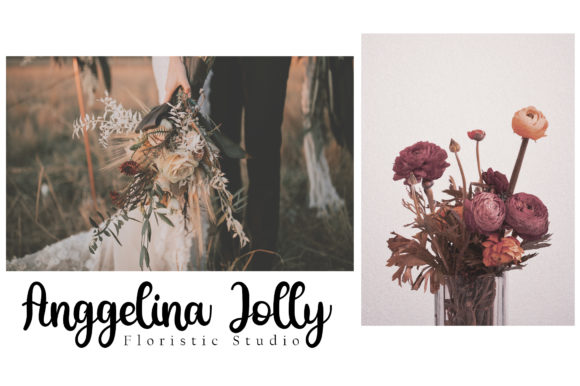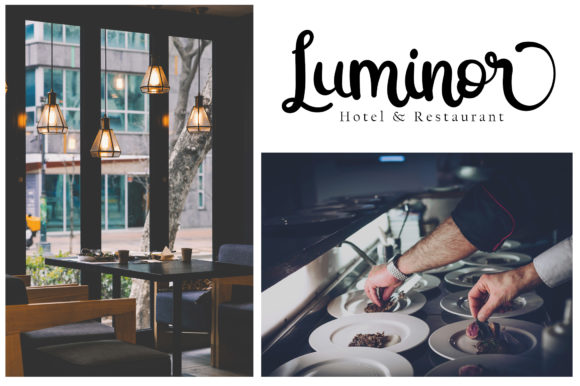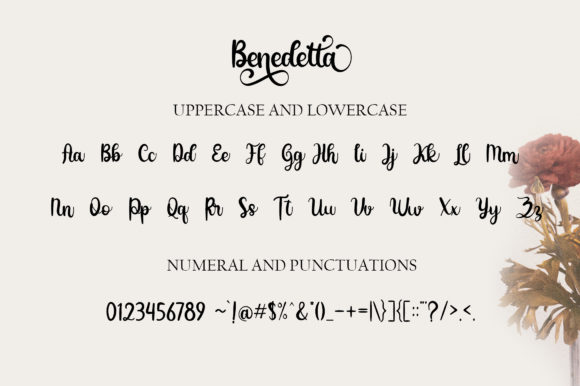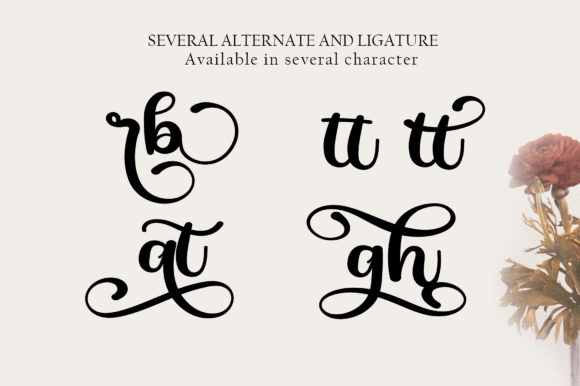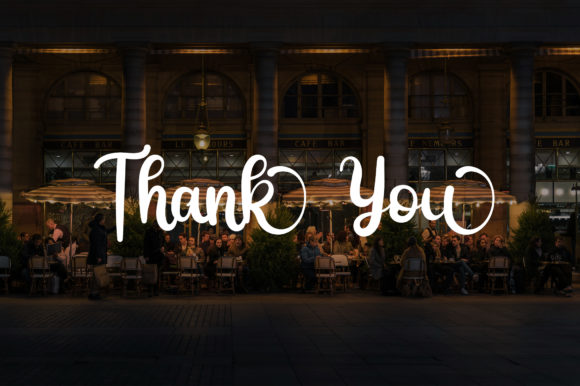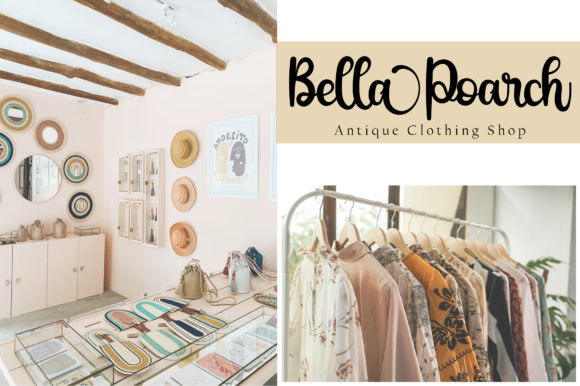
Benedetta Font: Elevate Your Designs with Elegance and Versatility
In the world of typography, few fonts manage to capture the essence of elegance and versatility as beautifully as Benedetta. This delicate and elegant handwritten font has been making waves among designers and crafters alike, and for good reason. With its distinct and well-balanced letters, Benedetta is a masterpiece waiting to be explored. In this article, we’ll dive into the features that make Benedetta a standout choice for your design projects and how it can help you create spectacular designs.
The Beauty of Benedetta
Benedetta’s charm lies in its delicate and elegant appearance. Each letter is carefully crafted to exude a sense of refinement and sophistication, making it perfect for projects that demand a touch of class. Whether you’re working on wedding invitations, branding materials, or digital content, Benedetta’s timeless beauty shines through, adding a level of professionalism and allure to your designs.
Distinct and Well-Balanced Letters
One of the defining features of Benedetta is its distinct and well-balanced letters. The font’s design ensures that each character is unique yet harmonious with the others, creating a cohesive and visually appealing text flow. This balance is crucial for readability and aesthetics, making Benedetta not only beautiful but also highly functional across various design applications.
Incredibly Versatile Style
Versatility is key in design, and Benedetta delivers in spades. Its elegant style can adapt to a wide range of projects, from feminine and whimsical to more formal and corporate. Whether you’re designing for print or digital platforms, Benedetta’s flexibility allows you to experiment with different styles and tones, ensuring your design always hits the mark.
Benedetta is PUA (Private Use Area) encoded, which means accessing its amazing glyphs and ligatures is incredibly easy. PUA encoding allows designers to use the font’s extended features without needing specialized software, making it straightforward to incorporate the font’s full range of creative possibilities into your designs. This feature is especially beneficial for those who want to add a personal touch to their work without getting bogged down in technical complexities.
Applications of Benedetta
The applications of Benedetta are as varied as they are exciting. Here are a few ideas to get you started:
• Wedding and Event Stationery: Create stunning wedding invitations, save-the-date cards, and event posters that set the tone for a memorable occasion.
• Branding and Packaging: Elevate your brand with elegant logos, product labels, and packaging designs that convey sophistication and quality.
• Digital Content: Enhance your website, blog, or social media graphics with Benedetta’s refined touch, making your content stand out in a crowded digital landscape.
• DIY Projects: Crafters will love using Benedetta for handmade cards, journaling, and other paper crafts, adding a personal and elegant touch to their creations.
Benedetta is more than just a font; it’s a design companion that can elevate your projects to new heights of elegance and sophistication. Its delicate and elegant appearance, combined with its versatility and ease of use, makes it an invaluable asset for designers and crafters. Whether you’re looking to create breathtaking wedding stationery, compelling brand identities, or simply add a touch of elegance to your digital content, Benedetta is the perfect choice. So why wait? Fall in love with Benedetta’s style and let it guide you in creating spectacular designs that leave a lasting impression.
Get Ready to Create with Benedetta